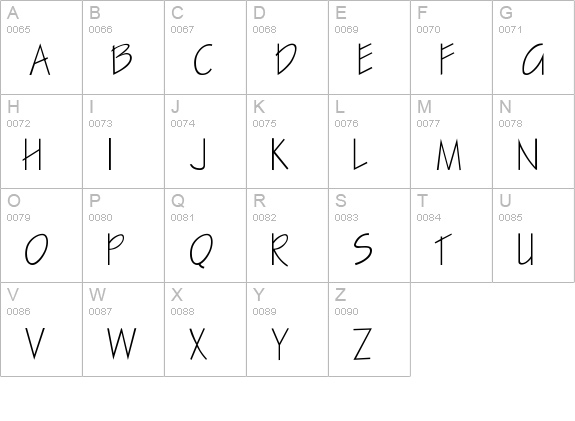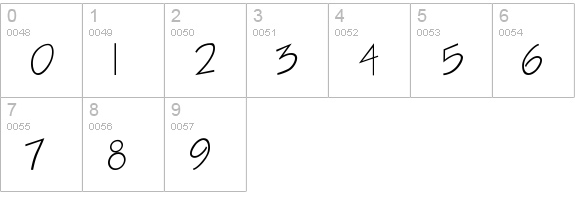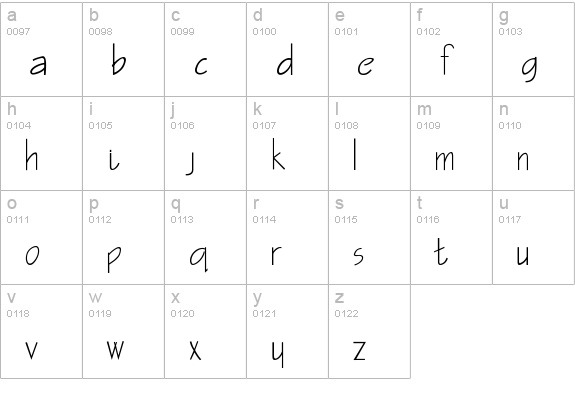
BluePrintBold Print Bold:001.001 Font Details
BluePrintBold Print Bold:001.001 font is a modern and stylish typeface that exudes confidence and sophistication. Its bold and sharp design is perfect for making a statement in any project, whether it be for branding, advertising, or graphic design. This versatile font is ideal for headlines, posters, logos, and more, adding a touch of boldness and professionalism to any design. The best part is that BluePrintBold Print Bold:001.001 font is completely free to download at FontsMarket.com. This means you can easily access this high-quality font and use it in your projects without any cost. Don't miss out on this fantastic opportunity to enhance your designs with the sleek and impactful BluePrintBold Print Bold:001.001 font. Download it today and let your creativity soar!